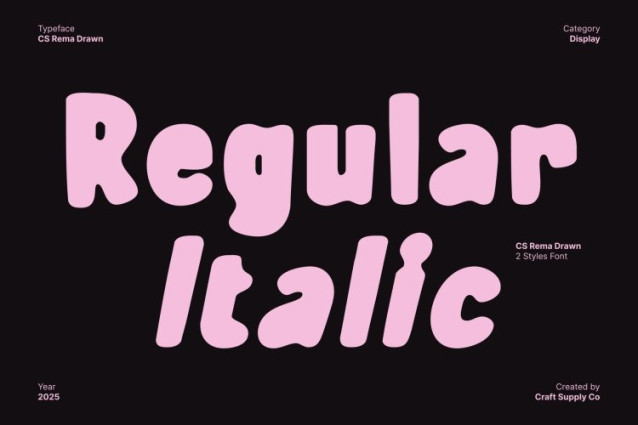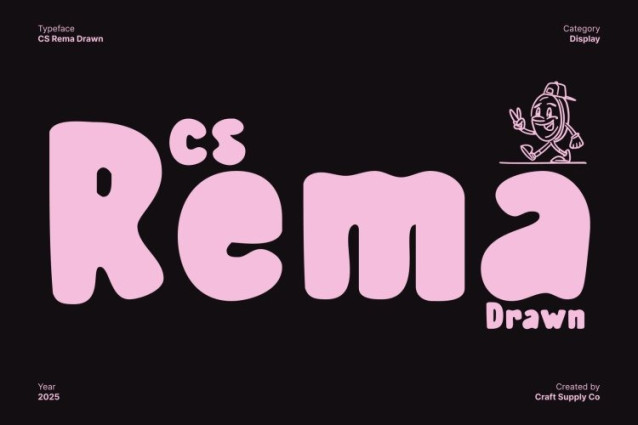
CS Rema Drawn Font
CS Rema Drawn Font Playful and energetic, this fun display font set features bold strokes and friendly shapes that instantly create a cheerful and approachable impression. Its rounded proportions and expressive forms bring a sense of movement and happiness, making every word feel alive, youthful, and full of personality. The font is designed to communicate warmth and positivity at first glance.
Drawn Texture for Natural and Soft Appearance
The drawn texture gives the font a natural, soft shape that feels relaxed and handcrafted. Subtle imperfections add an organic touch, making each character feel personal and artistic rather than rigid or mechanical. This softness balances the bold strokes beautifully, resulting in typography that feels friendly, cozy, and visually comforting.
Perfect for Youth Branding and Casual Creativity
Ideal for youth branding, greeting cards, playful packaging, posters, school projects, and casual creative designs, this font adapts effortlessly across print and digital media. Its bold yet gentle appearance ensures strong readability while maintaining a fun, informal, and welcoming tone.
Joyful, Soft, and Creatively Expressive
By combining bold display letterforms with a natural drawn texture, this font offers the perfect blend of strength and softness. It’s an excellent choice for designers seeking a fun, approachable, and artistic font that brings joy, creativity, and friendly energy to every design.